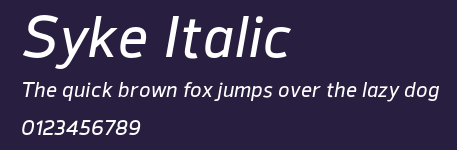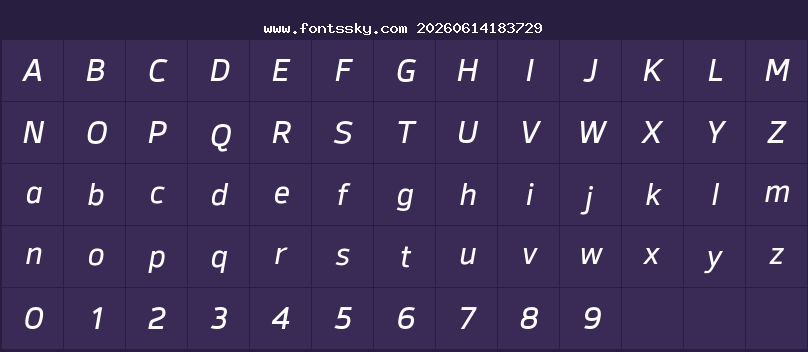
• Font Name: Syke Italic
• Full Font Name: Syke Italic
• Designer: Jonathan Hill
• Manufacturer: The Northern Block Ltd.
• Description: A versatile sans serif typeface that combines both humanist and geometric concepts. The blend of narrow rounded letter shapes with subtle square detailing create a design ideally suited for typographical work in a digital application. Syke has a distinctive character without being overwhelming making it ideal for film titles, user interfaces and the web. Details include seven weight with true italics, over 570 characters, five variations of numerals, ligatures, manually edited kerning and Opentype features.
Syke Italic.otf is a modern, elegant sans-serif font designed for ultimate readability and visual harmony. Perfect for branding, headlines, web design, and print materials.